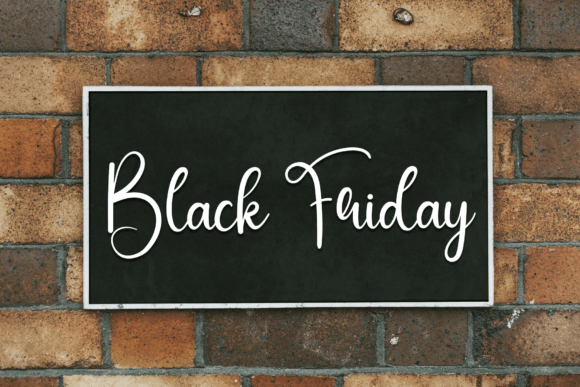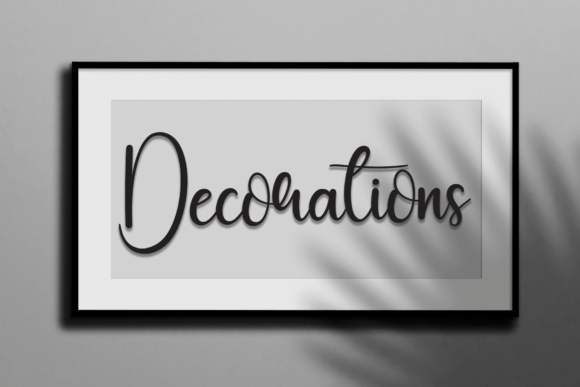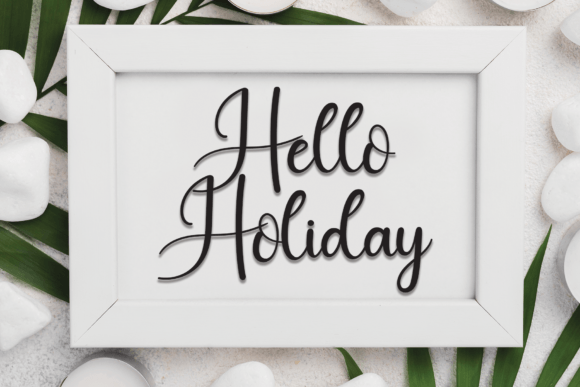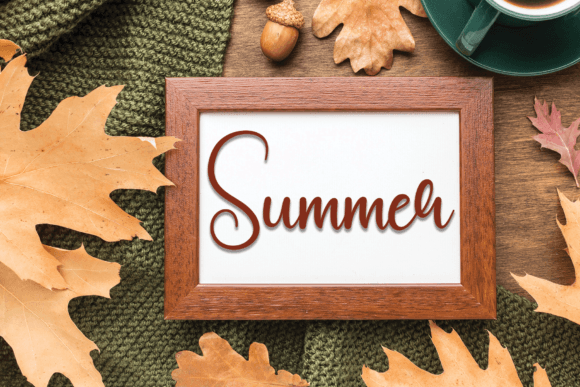
Add a Personal Touch with Handmade Font
If you’re looking for a warm, approachable handwritten typeface, Handmade Font is a perfect choice. Its friendly curves and casual style make it an ideal addition to any creative toolkit. Whether you’re working on a holiday greeting, a branding concept, or a DIY craft project, this font delivers charm and flexibility every time.
Designed for Versatility and Warmth
Handmade Font adapts beautifully to a variety of uses. Because of its clean and informal handwritten style, it fits well in:
• Greeting cards
• Craft projects like labels, packaging, and printables
• Digital content for social media, banners, and presentations
• Invitations for weddings, parties, or baby showers
• Stationery and personalized gifts
From heartfelt messages to decorative quotes, this font communicates sincerity and friendliness. Its consistent letterforms ensure readability, even at smaller sizes.
Why Designers Love Handmade Font
One of the reasons this typeface is so loved is its ability to evoke a personal, handwritten touch without sacrificing quality. Unlike fonts that feel too rigid or too stylized, Handmade Font finds the sweet spot between casual and professional.